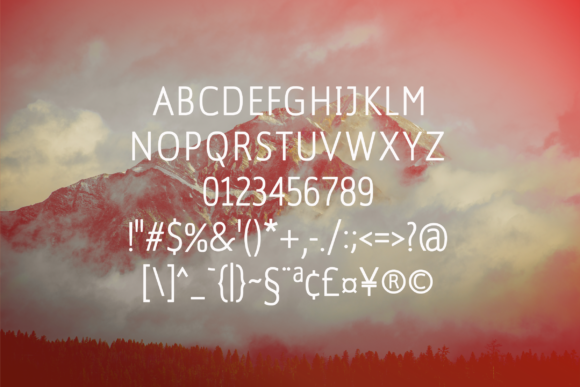
Discover the Charm of Amsterdam Font
Have you ever found yourself lost in the winding canals of Amsterdam, mesmerized by the city’s elegant architecture and charming atmosphere? As a designer, you know that moments like these spark creativity and inspire new ideas. The beauty of Amsterdam has now been distilled into a stunning font, perfect for elevating your designs to new heights.
| 👤 Author | Huntype |
The Amsterdam Font is a sans serif masterpiece, carefully crafted to capture the essence of this iconic city. With its clean lines and refined curves, this font is designed to make your designs stand out from the crowd. Whether you’re working on a branding project, a brochure, or a website, the Amsterdam Font is the perfect tool to give your creations a touch of sophistication and style.
Amsterdam Font Key Features
- Font Family: Amsterdam is a sans-serif font family designed for digital use.
- Unique Characteristics: Amsterdam Font features a clean and modern design, with a distinctive x-height and a subtle geometric feel.
- Language Support: Amsterdam Font supports a wide range of languages, including Latin, Cyrillic, and Greek scripts.
Amsterdam Font Review
Amsterdam Font is a clean and elegant sans-serif font, perfect for creating a modern and sophisticated look in your designs. ✨ The font’s rounded edges and open shapes give it a friendly and approachable feel, making it ideal for use in digital interfaces and publications.
- The Amsterdam Font’s legibility is excellent, even at smaller font sizes, making it suitable for body text and captions.
- The font’s wide range of weights and styles provides a lot of flexibility for designers to experiment with different looks and moods.
- The Amsterdam Font is also highly customizable, allowing designers to adjust the font’s spacing, line height, and other properties to suit their specific needs.
However, there are some limitations to consider. ⚠️ The Amsterdam Font may not be the best choice for use in highly technical or scientific contexts, where a more formal and traditional font may be more suitable. Additionally, the font’s rounded edges may not be ideal for use in situations where a more dramatic or attention-grabbing effect is desired.
Overall, I would give the Amsterdam Font 4 out of 5 stars. While it has some limitations, its clean and elegant design makes it a great choice for a wide range of design applications. With its excellent legibility, wide range of weights and styles, and high level of customization, the Amsterdam Font is definitely worth considering for your next design project.
Use Amsterdam Font for titles, headings, and other text elements that need a touch of elegance and sophistication.
Combine Amsterdam Font with other fonts to create a unique and visually appealing typography.
Experiment with different font sizes and styles to achieve the desired look and feel.
Amsterdam Font is ideal for:
Photography and design portfolios